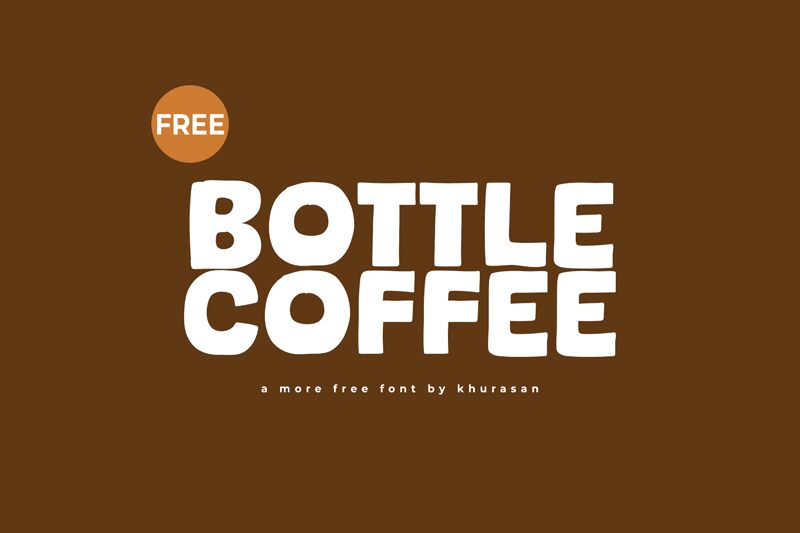
Bottle Coffee
Bottle Coffee, a bold and captivating display font designed by Khurasan, exudes a playful, cartoon-inspired aesthetic. The exaggerated, rounded letterforms and robust stroke width create an engaging visual presence, instantly capturing attention. This typeface's unique character imbues a sense of whimsical charm, making it an ideal choice for branding, packaging, and editorial designs seeking to convey a lighthearted, approachable tone.
Bottle Coffee's distinctive style lends itself well to various applications, from eye-catching headlines and impactful logos to vibrant product labels and inviting social media graphics. Its bold and confident appearance makes it a natural fit for energetic brands, while its cartoon-inspired flair can breathe life into playful, family-friendly designs. Versatile and memorable, Bottle Coffee is a font that effortlessly bridges the gap between playfulness and professionalism.